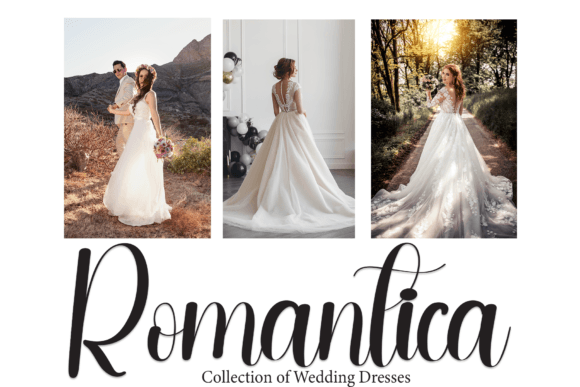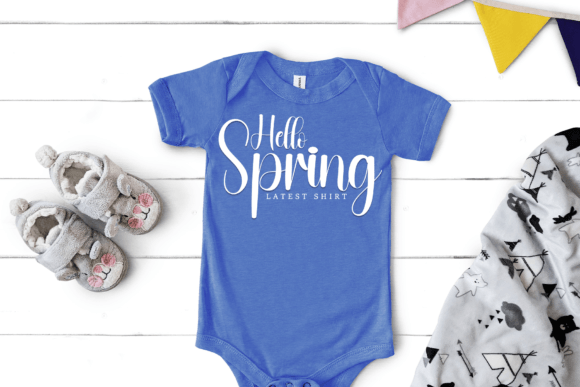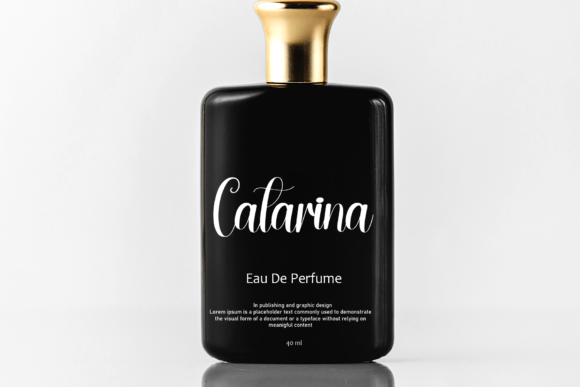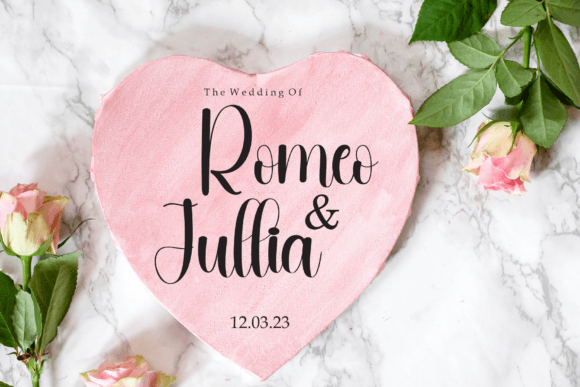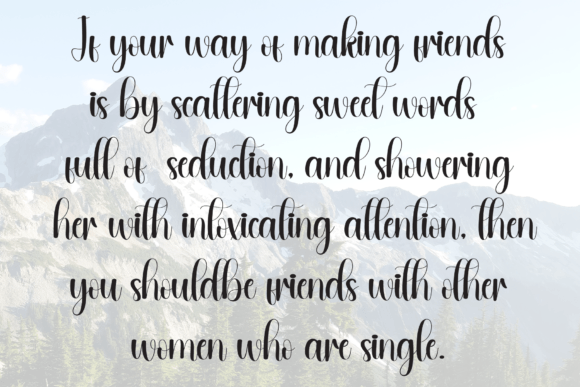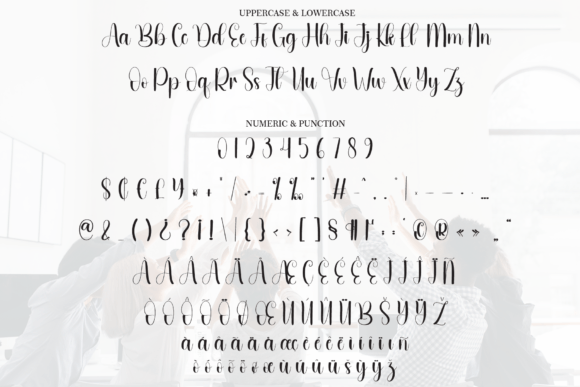
Bunching Font: The Sweet and Friendly Handwritten Font for Your Creative Projects
Are you looking for a font that can add a personal touch to your designs? Look no further than Bunching Font, a sweet and friendly handwritten font that’s perfect for creating beautiful wedding invitations, cards, and other crafty projects. In this article, we’ll explore the features and benefits of Bunching Font, and show you how to make the most of this lovely font in your designs.
What is Bunching Font?
Bunching Font is a fresh and casual handwritten font that’s designed to bring a touch of warmth and personality to your designs. With its smooth and flowing lines, Bunching Font is ideal for creating a wide range of projects, from wedding invitations and cards to posters, flyers, and more. Whether you’re a designer, crafter, or DIY enthusiast, Bunching Font is a great choice for anyone looking to add a little extra something special to their work.
Features of Bunching Font
So what makes Bunching Font so special? Here are just a few of its key features:
- Sweet and friendly style: Bunching Font has a warm and inviting style that’s perfect for creating designs that feel personal and approachable.
- Handwritten look: With its flowing lines and subtle imperfections, Bunching Font has a beautifully handwritten look that’s sure to add a touch of personality to your designs.
- Fresh and casual feel: Bunching Font has a lighthearted and carefree feel that’s perfect for creating designs that feel modern and youthful.
- Highly versatile: Whether you’re creating wedding invitations, cards, posters, or any other type of design, Bunching Font is a great choice.
Using Bunching Font in Your Designs
So how can you use Bunching Font in your designs? Here are a few ideas to get you started:
- Wedding invitations: Bunching Font is a beautiful choice for wedding invitations, with its sweet and romantic style that’s sure to set the tone for a special day.
- Cards and stationery: Bunching Font is also a great choice for creating cards and stationery, with its friendly and approachable style that’s perfect for writing letters and sending messages.
- Posters and flyers: If you’re creating posters or flyers for a event or promotion, Bunching Font can add a fun and playful touch that’s sure to grab attention.
- Crafting and DIY projects: Bunching Font is also a great choice for crafters and DIY enthusiasts, with its sweet and friendly style that’s perfect for creating handmade cards, gift tags, and other projects.
Tips for Working with Bunching Font
Here are a few tips for working with Bunching Font:
- Use it with care: Bunching Font is a delicate font that works best when used sparingly. Try pairing it with a simpler font for body text, or using it as a accent font to add emphasis to certain words or phrases.
- Experiment with colors: Bunching Font looks great in a wide range of colors, from soft pastels to rich jewel tones. Experiment with different colors to find the perfect look for your design.
- Add some texture: To give your design an extra touch of personality, try adding some texture to your Bunching Font text. This could be a subtle background texture, or a more dramatic overlay effect.
Bunching Font is a sweet and friendly handwritten font that’s perfect for adding a personal touch to your designs. With its smooth and flowing lines, Bunching Font is ideal for creating a wide range of projects, from wedding invitations and cards to posters, flyers, and more. Whether you’re a designer, crafter, or DIY enthusiast, Bunching Font is a great choice for anyone looking to add a little extra something special to their work.